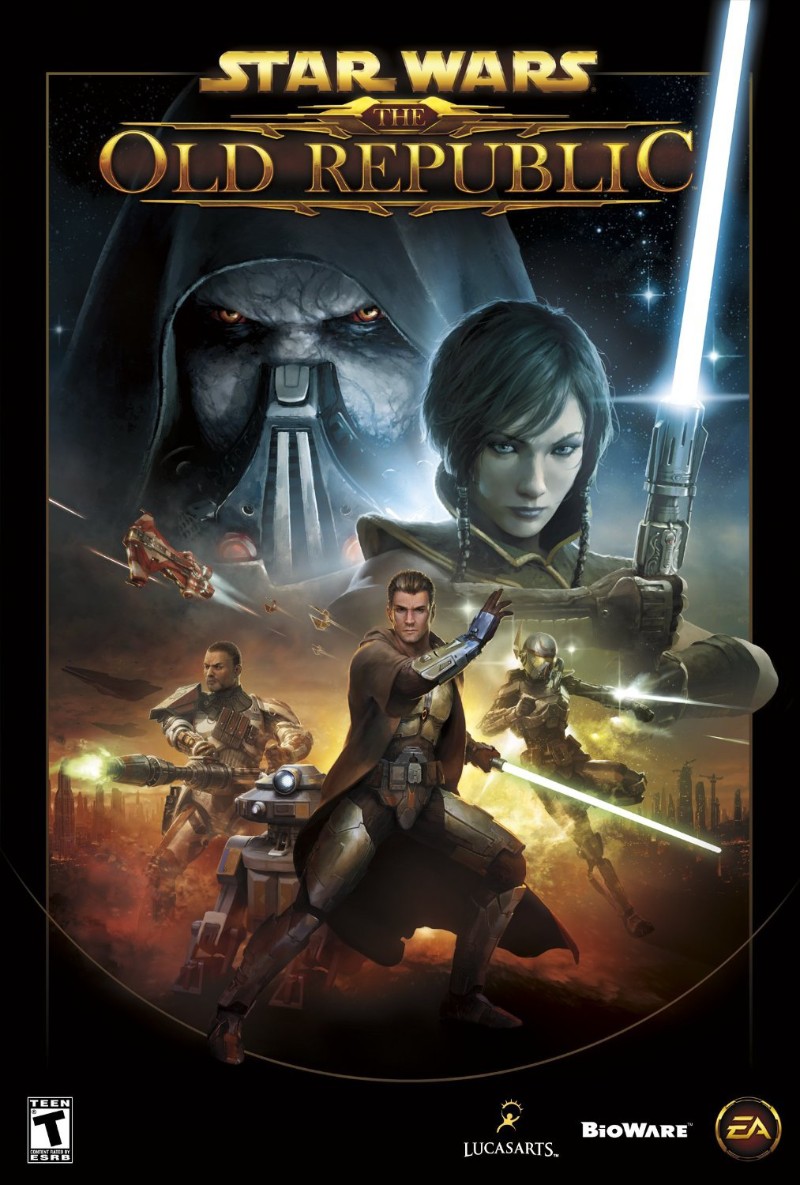
Star Wars The Old Republic Font
Fonts in UseStar Wars: The Old Republic was developed by BioWare and published by Electronic Arts. It is a massively multiplayer online role-playing game set in the Star Wars universe, allowing players to choose between the light and dark sides of the Force while embarking on epic quests and battling enemies across the galaxy.
Baskerville Old Face SC, a serif font published by URW, is used for the video game title. The font for "Star Wars" is reminiscent of a free font Star Jedi by Boba Fonts.